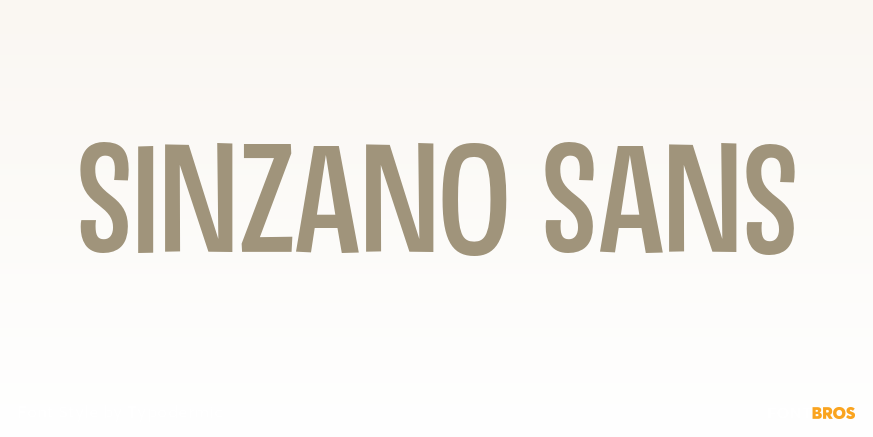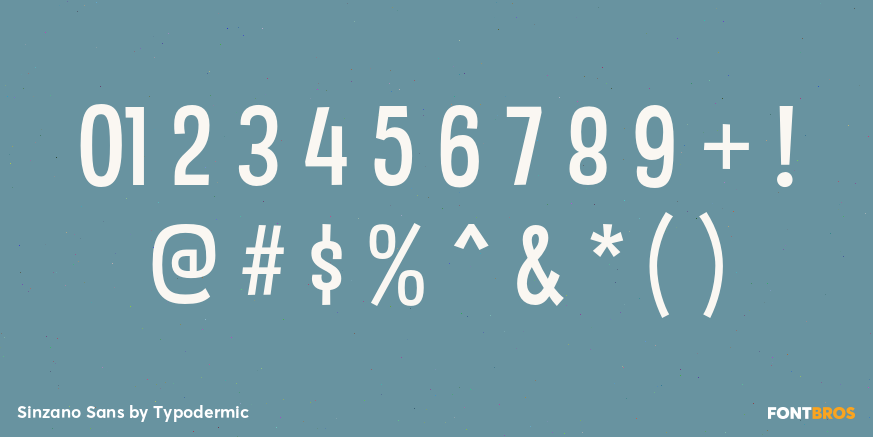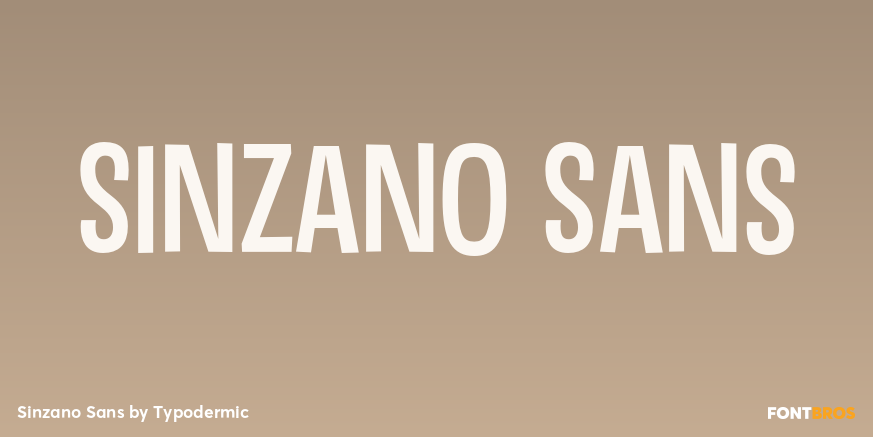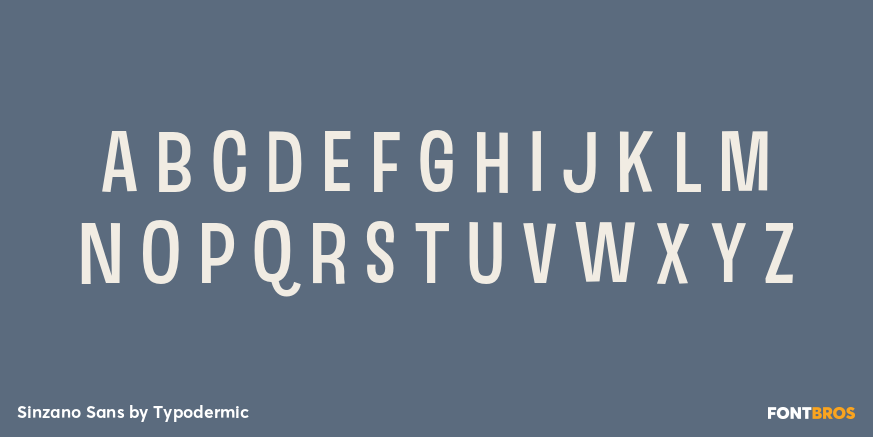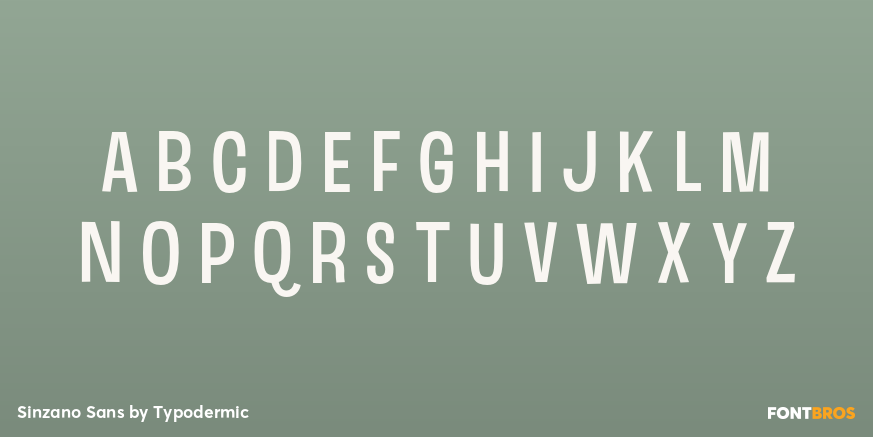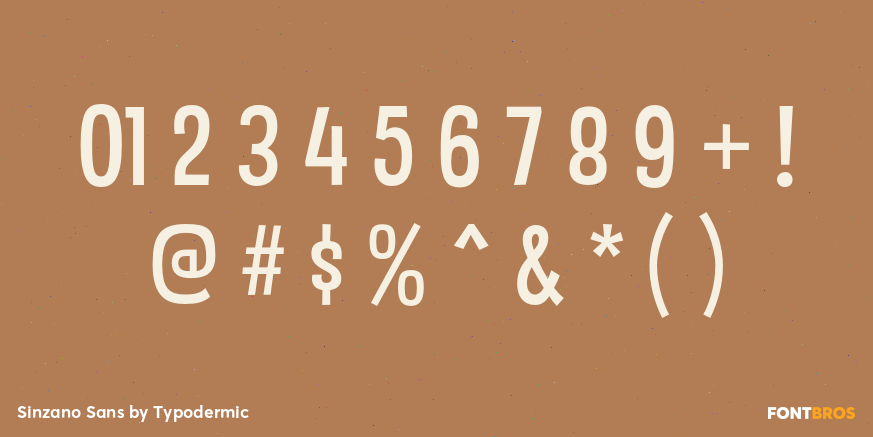
Sinzano Sans
Buy NowSinzano Sans removes the flared endings of the original Sinzano while preserving its narrow proportions and close-fitting, interlocking relationships. With less historical decoration around the strokes, the way neighboring letters respond to one another becomes the main event, turning short words into compact arrangements with the feel of purpose-built lettering.
Use Sinzano Sans for cocktail bars, restaurants, hotel venues, drinks ranges, fragrance names, jewelry campaigns, and cultural events that need a tailored name without a serif finish. It can distinguish sub-brands inside a larger identity and adapt to changing names across menus, signs, labels, and campaign graphics while remaining visibly related to the flared Sinzano Regular.